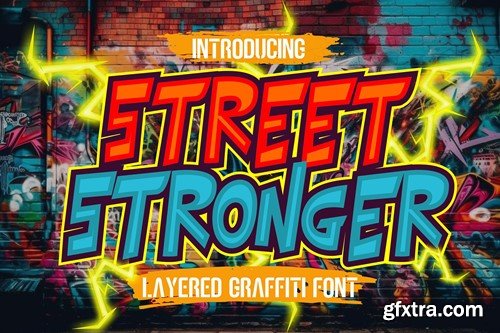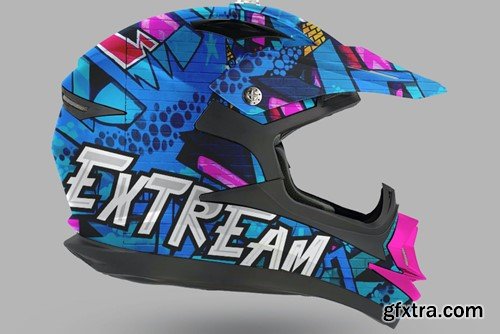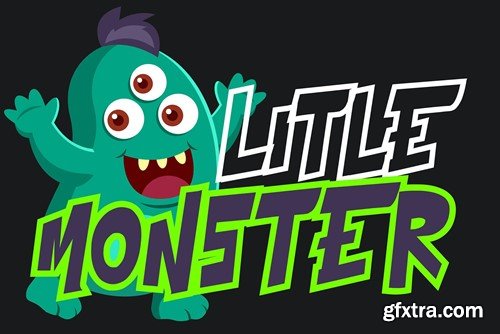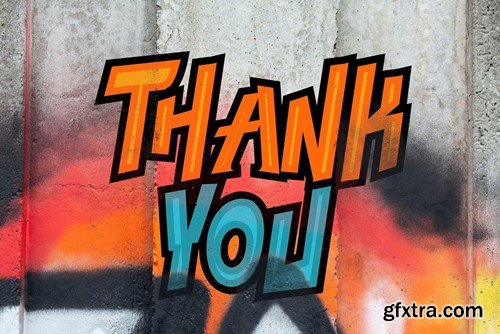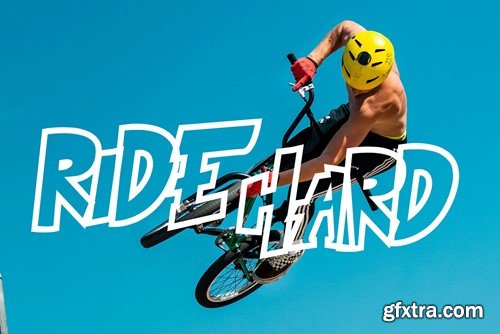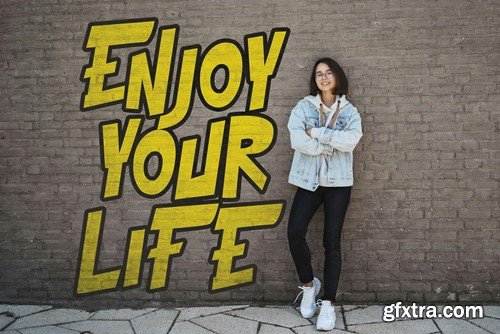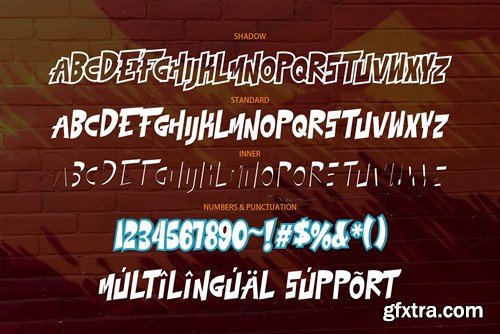
Street Stronger - Layered Graffiti Font RQ99QZB
Street Stronger - Layered Graffiti Font
Street Stronger is an electrifying and versatile layered graffiti font that packs a punch in your design projects. With multiple layers, it allows you to create text that's not just bold but also visually dynamic, giving your work a genuine urban edge. Whether you're crafting posters, street art, or branding for streetwear, Street Stronger provides you with the tools to make your typography truly stand out, adding depth, character, and a fierce streetwise aesthetic that captures attention and commands respect.